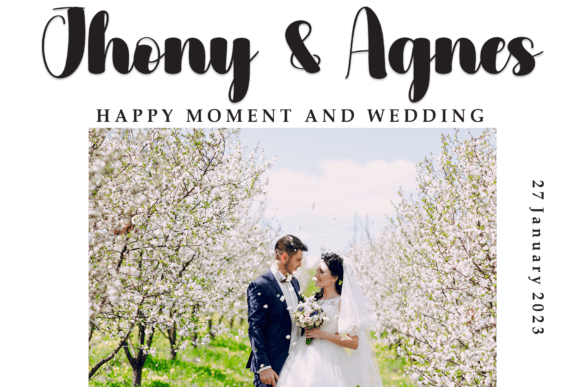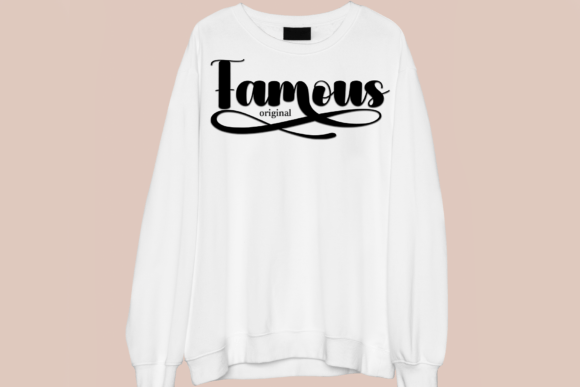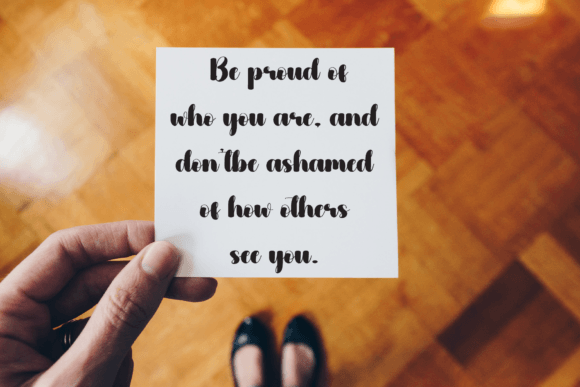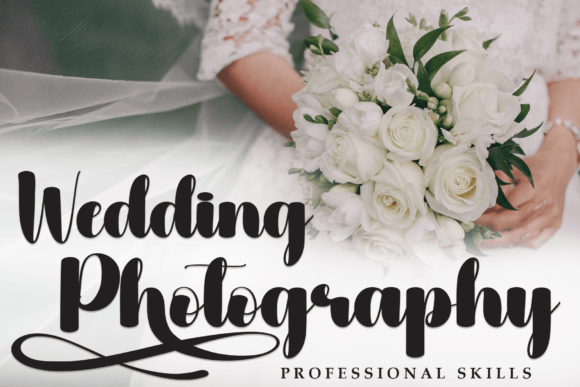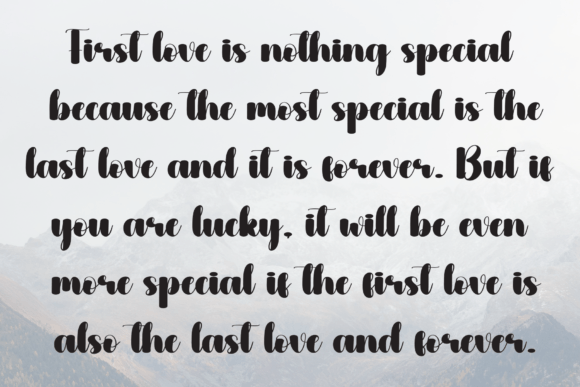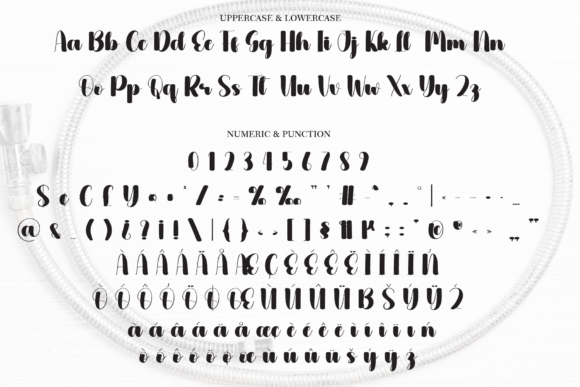
Introduction to Interval Font
Interval is a modern handwritten script.
This font looks natural, stylish, and perfect for any extraordinary project that requires a handwritten feel Its versatile style looks lovely on wedding invitations, thank you cards, quotes, greeting cards, logos, business cards, and every other design which needs a customized touch.
Key Features of Interval Font